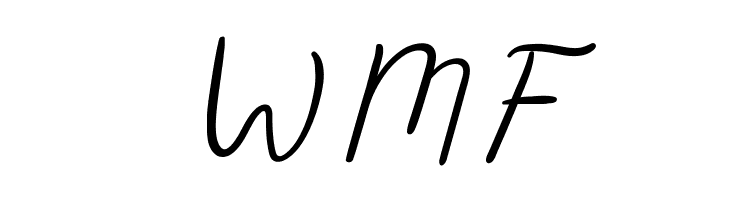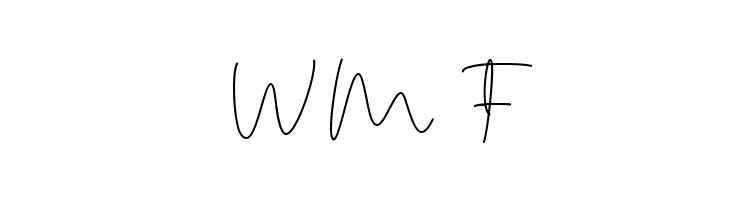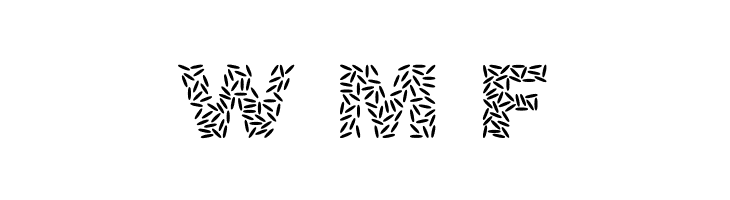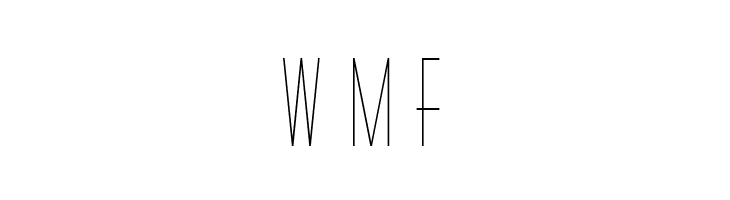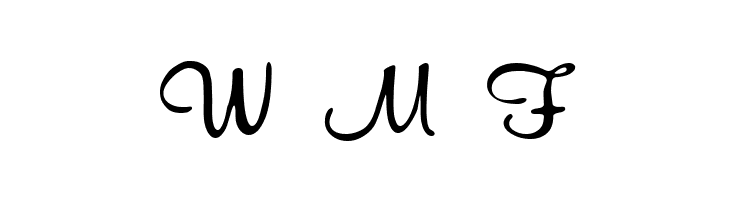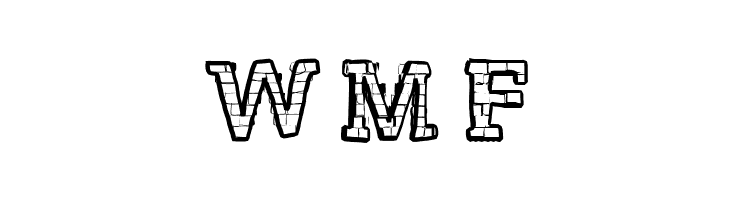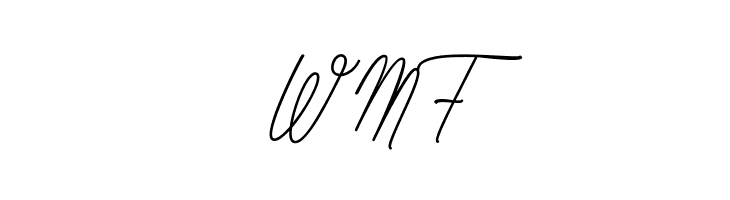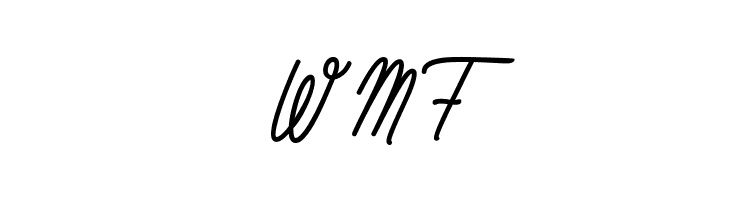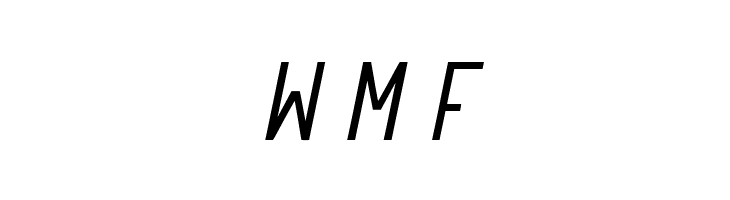
A lively and expressive handwritten font with fluid, dynamic strokes.
An elegant, flowing script font with thin, elongated letterforms and graceful curves.
A dynamic and flowing script font with elegant cursive letterforms.
A playful, brick-patterned font with a bold, three-dimensional style.
A playful, mosaic-style font with bold, blocky characters.
A cursive script font with elegant, flowing lines and connected characters.
A modern, italicized font with sleek, elongated characters and consistent stroke width.